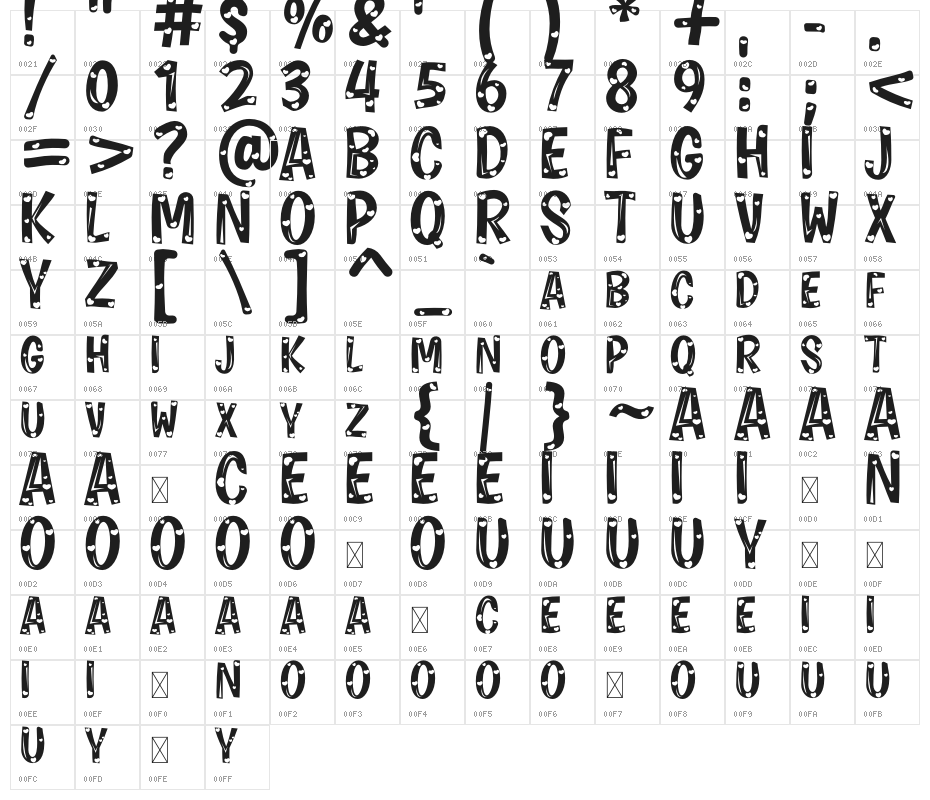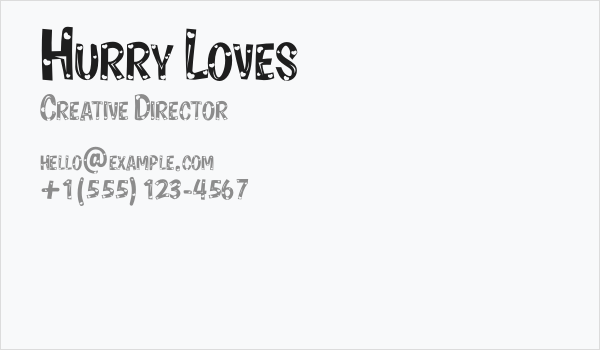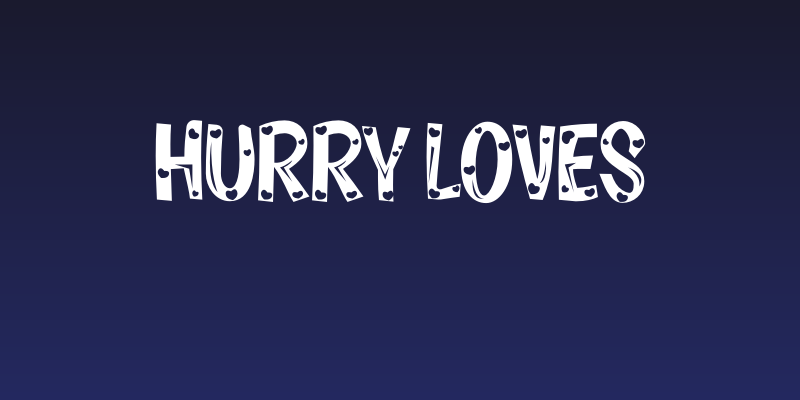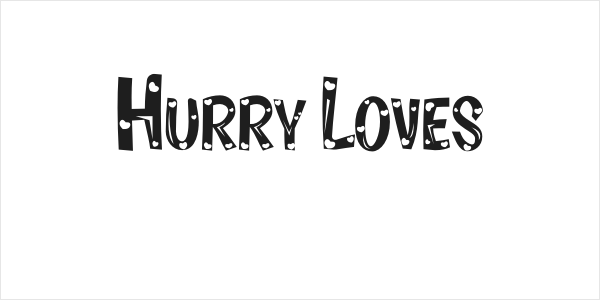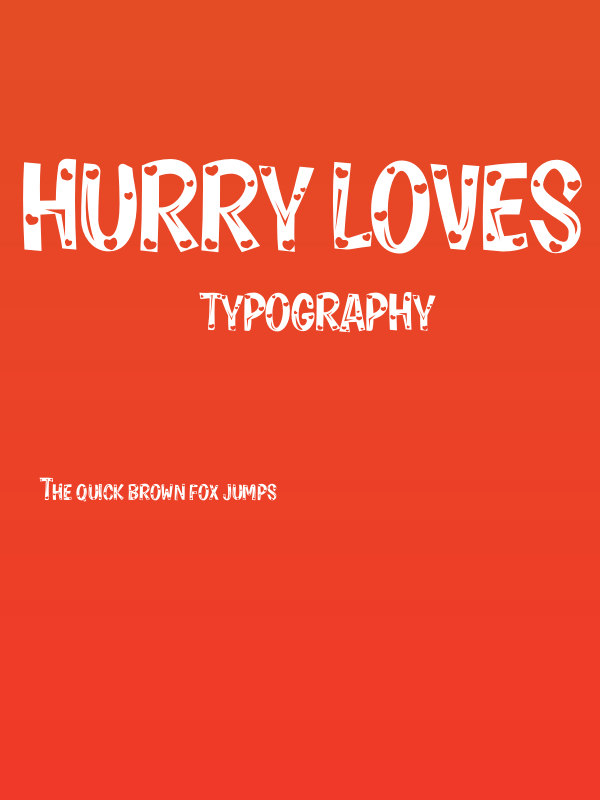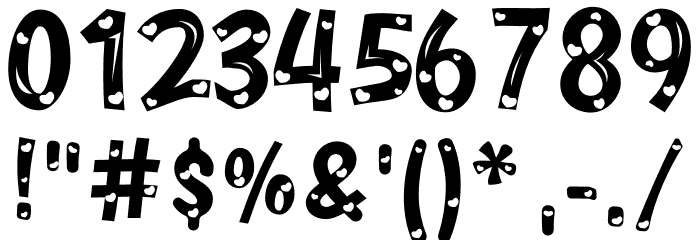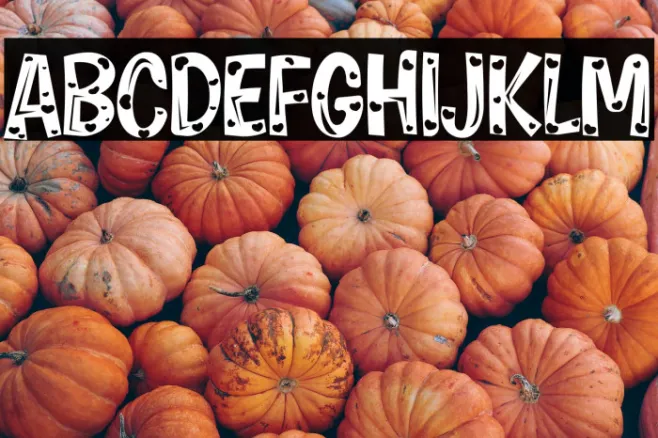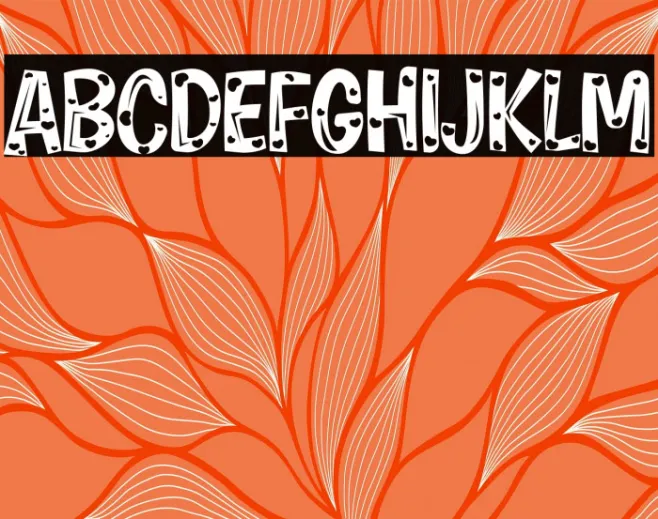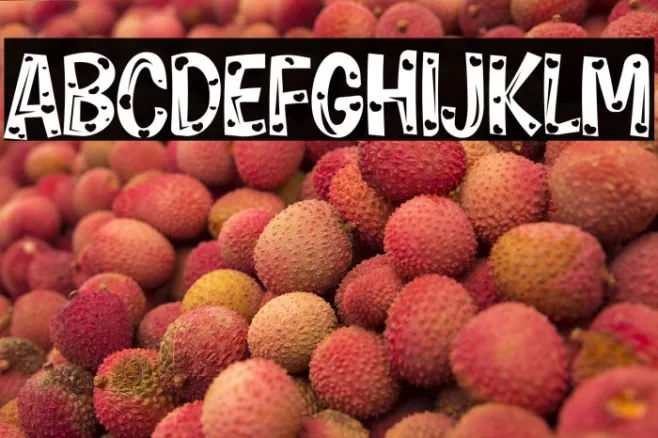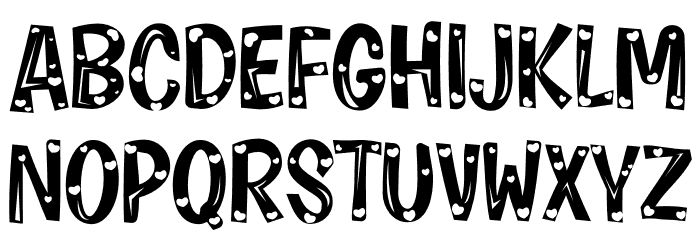
Hurry Loves Font
Hurry Loves Description
This playful and whimsical font features bold, cartoonish letters with a unique polka dot pattern inside each character. The design is eye-catching and fun, making it ideal for projects that require a lively and energetic feel. The uppercase and lowercase letters maintain a consistent style, with rounded edges and a slightly irregular shape that adds to the font's charm. Numbers and special characters are equally stylized, ensuring a cohesive look across all text. The font's boldness and decorative elements make it stand out, perfect for creative and informal applications.
| Overall Style | Playful, Whimsical, Fun |
| Proposed Projects | Ideal for children's books, party invitations, playful branding, and posters. |